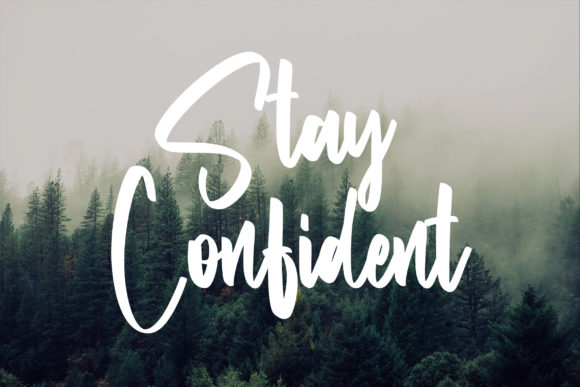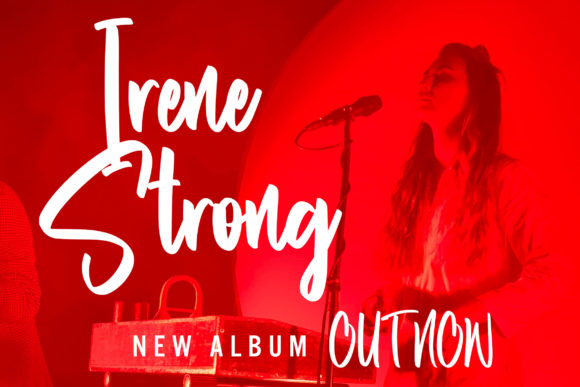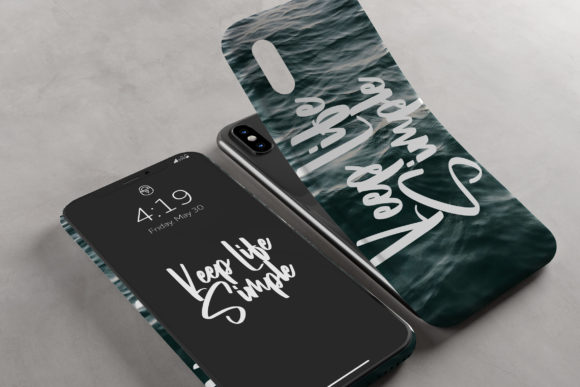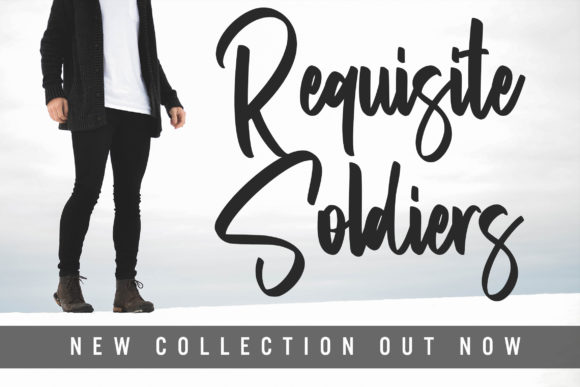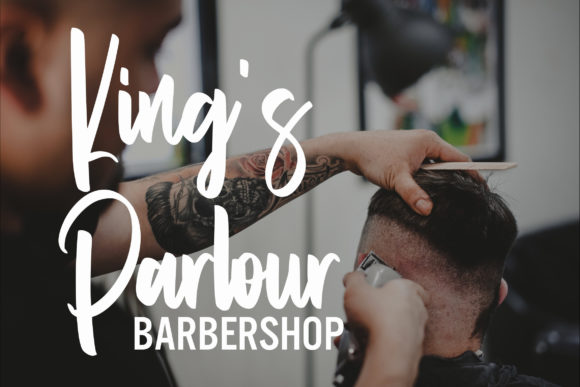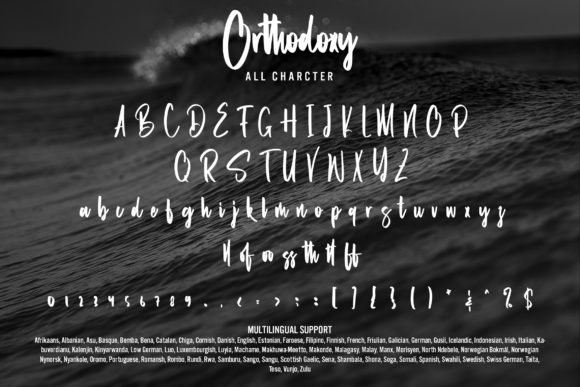
Orthodoxy Font
Orthodoxy is a cool, bold, and cursive script font that exudes strength, confidence, and a touch of nostalgia. With its unique and distinctive letterforms, this font is sure to make a bold statement in your designs.
The bold strokes and fluid curves of Orthodoxy give it a strong and dynamic appearance, making it an ideal choice for projects that require a powerful and impactful typography. Whether you’re designing a logo, a headline, a poster, or any other design where you want to make a statement, Orthodoxy will command attention and leave a lasting impression.
The cursive nature of the font adds a touch of elegance and sophistication, while the bold weight adds a sense of strength and presence. It combines these elements to create a harmonious balance that makes it suitable for a wide range of applications.
Orthodoxy is perfect for projects that call for a cool and confident vibe, such as branding, packaging, advertising, and more. Its strong and bold appearance makes it particularly well-suited for designs in the fashion, beauty, and lifestyle industries, where making a statement is crucial.
With its nostalgic character, Orthodoxy can also be a great choice for retro-themed designs or projects that aim to evoke a sense of vintage charm. It brings a touch of the past while still maintaining a contemporary appeal.
Whether you’re designing for print or digital media, Orthodoxy’s bold and cursive script style will ensure your message stands out. Its confident and dynamic nature makes it a versatile font that can be used in various design contexts, allowing you to unleash your creativity and create visually stunning and impactful designs.
In summary, Orthodoxy is a cool, bold, and cursive script font that combines strength, confidence, and nostalgic character. Its unique letterforms and bold weight make it a powerful choice for making a statement in your designs. Use Orthodoxy to add a touch of elegance, strength, and dynamic energy to your branding, advertising, and other design projects.